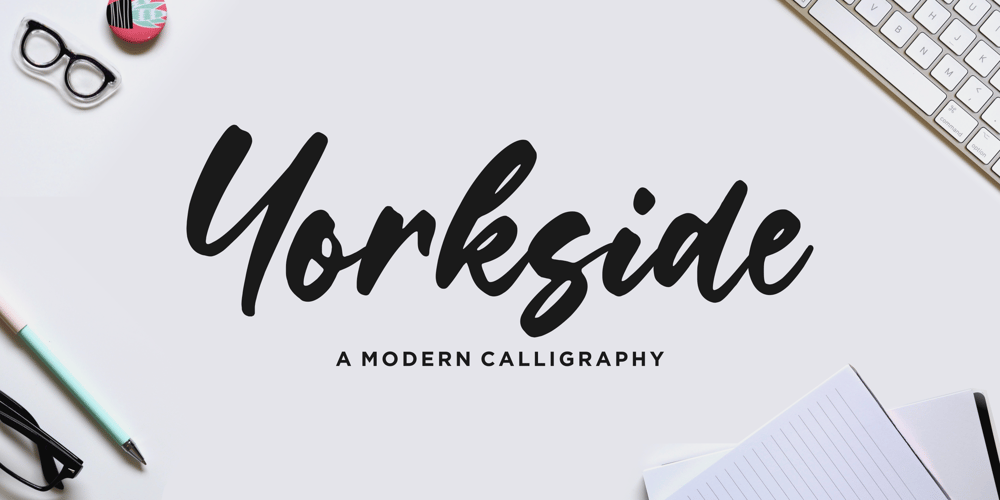
Yorkside Font Family was designed by Restu Angga and published by Balpirick. Yorkside contains 1 styles and family package options. Orkside is a Modern Calligraphy Font.Yorkside is a cool, trendy and paint brushed handwritten font. It looks beautiful on a variety of designs requiring a personalized style, such as wedding invitations, thank you cards, weddings, greeting cards, logos and so on. Yorkside also multilingual support.Enjoy the font, feel free to comment or feedback, send me PM or email.Thank you!